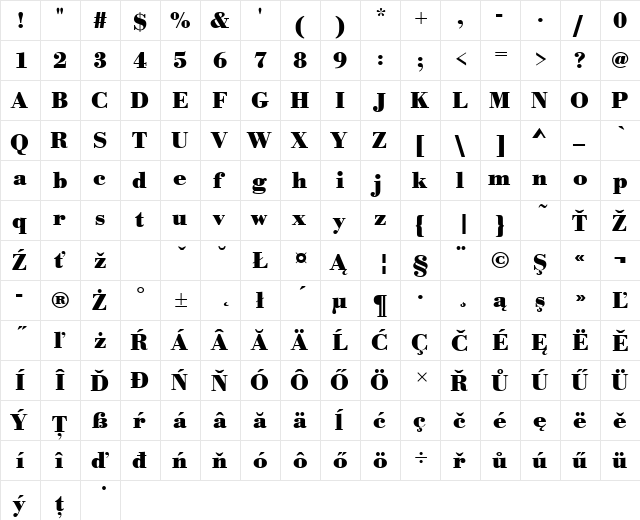
BodoniAntTEE Bold Font Preview
BodoniAntTEE Bold
Design Context for BodoniAntTEE Typeface
BodoniAntTEE takes a measured approach to typography — its balanced proportions and neutral character make it a reliable workhorse for both digital and print work. Its bold stroke weight gives it real presence on the page.